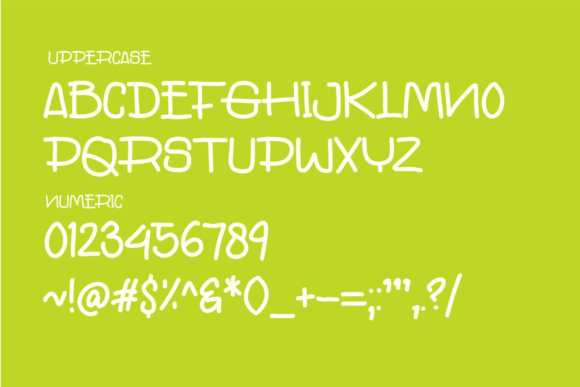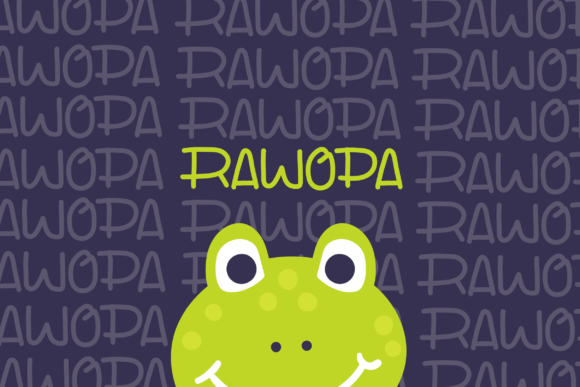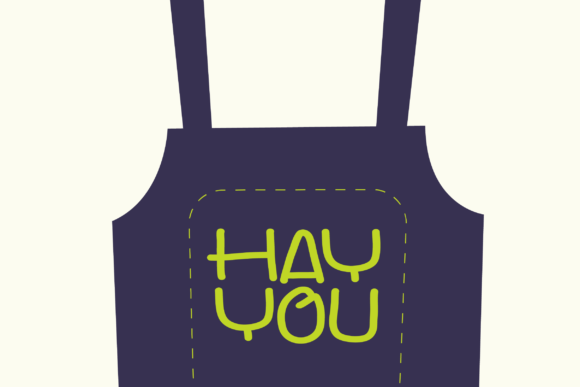
Introduction to Rawopa Font
Have you ever stared at a blank design canvas, desperately seeking the perfect font to bring your creative project to life? I’m sure many of us have been there. As designers, we’re constantly on the lookout for that one special font that can elevate our work and make it truly stand out. That’s where the Rawopa Font comes in – a playful and cute font that’s sure to add a cheerful touch to any design.
Whether you’re working on a book cover, poster, or packaging design, the Rawopa Font is an excellent choice. Its versatility and charm make it a valuable asset for designers looking to add a unique accent to their work. With its transparent background and high-quality design, the Rawopa Font is a must-have resource for any creative project.
Key Features of Rawopa Font
- Unique characteristics: The Rawopa Font boasts a unique blend of modern and vintage elements, adding a touch of elegance to your design.
Honest Review: Rawopa Font
I recently stumbled upon the Rawopa Font while searching for a design resource for a creative project. As a designer, I’m always on the lookout for high-quality fonts that can elevate my work. In this review, I’ll share my honest thoughts on the Rawopa Font.
- The Rawopa Font has a unique, elegant design that makes it perfect for various creative projects.
- The Rawopa Font is highly versatile and can be used for a wide range of applications, from headings to body text.
- The font’s design may not be suitable for all types of creative projects, particularly those requiring a bold or edgy look.
Overall, I’m impressed with the Rawopa Font’s design and versatility. While it may not be perfect for every project, it’s a valuable addition to any designer’s toolkit. If you’re looking for a high-quality font for your creative project, the Rawopa Font is definitely worth considering.
Common Use Cases for Rawopa Font
The Rawopa Font is ideal for use in creative projects such as logos, business cards, and brochures. It is also suitable for use in presentations and documents that require a high-quality and professional design. The font’s unique style and transparent background make it an excellent choice for designers looking to create a seamless and visually appealing design.